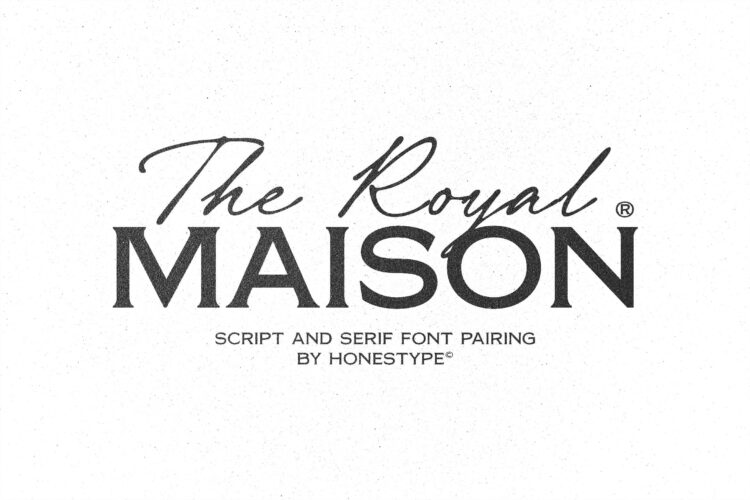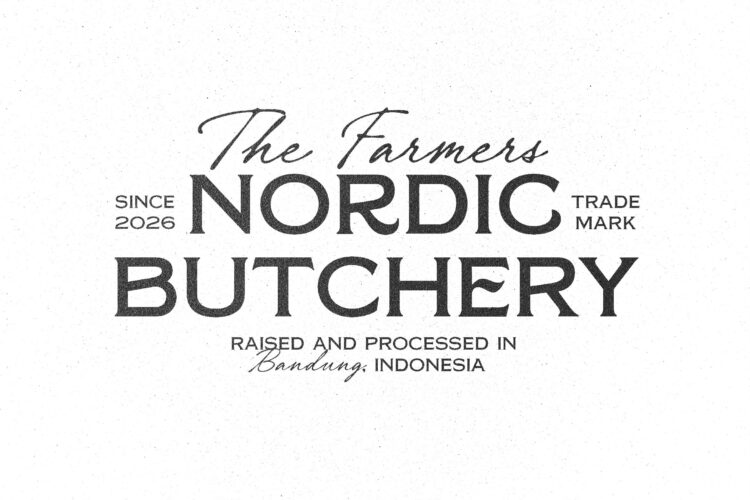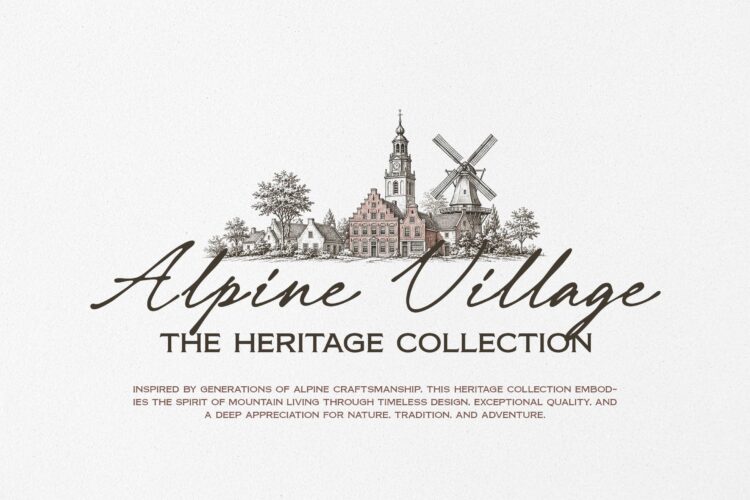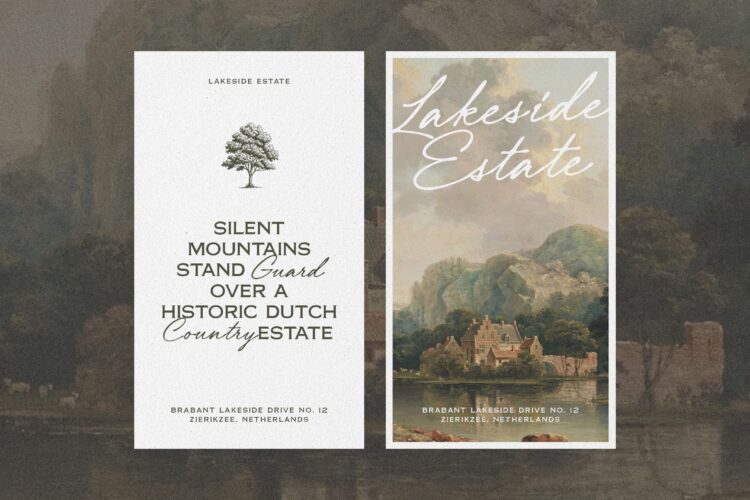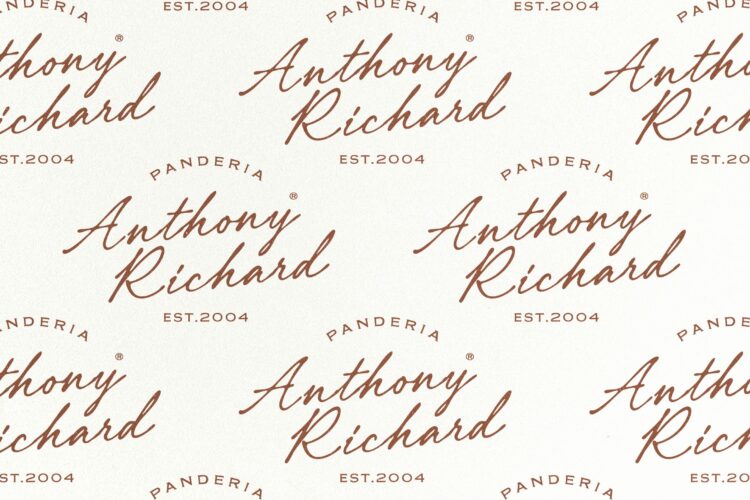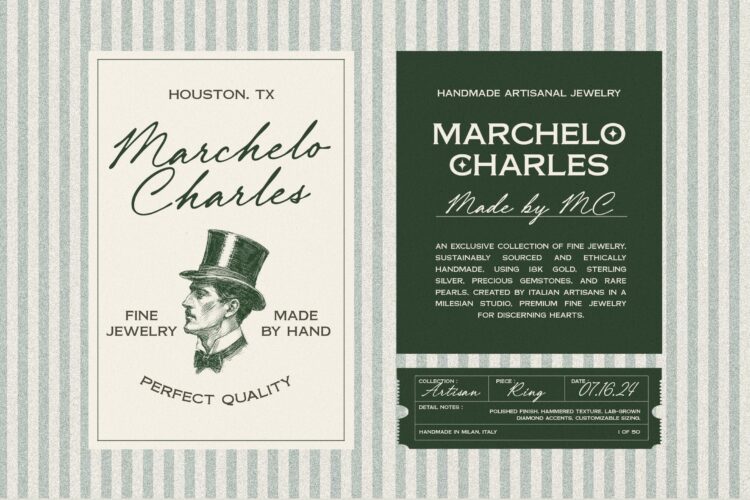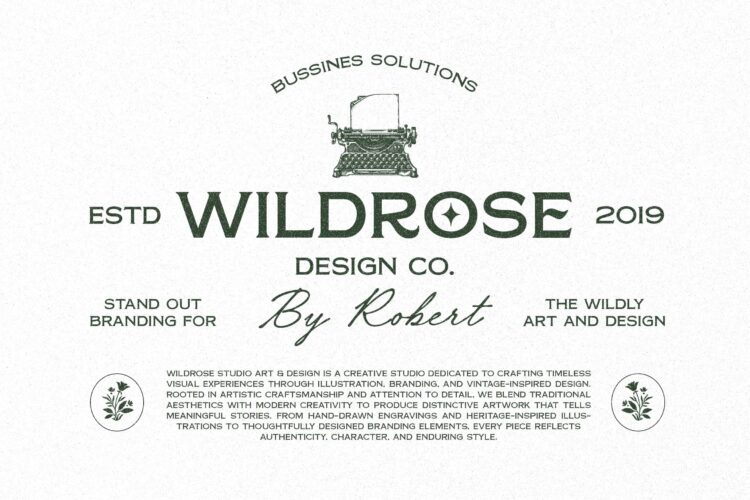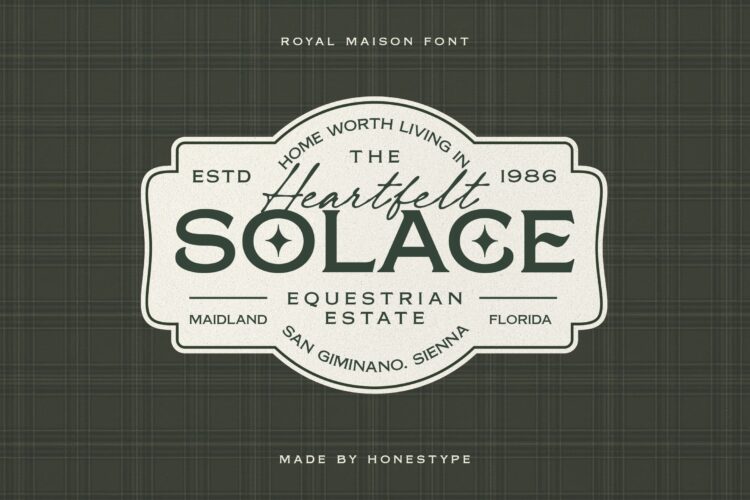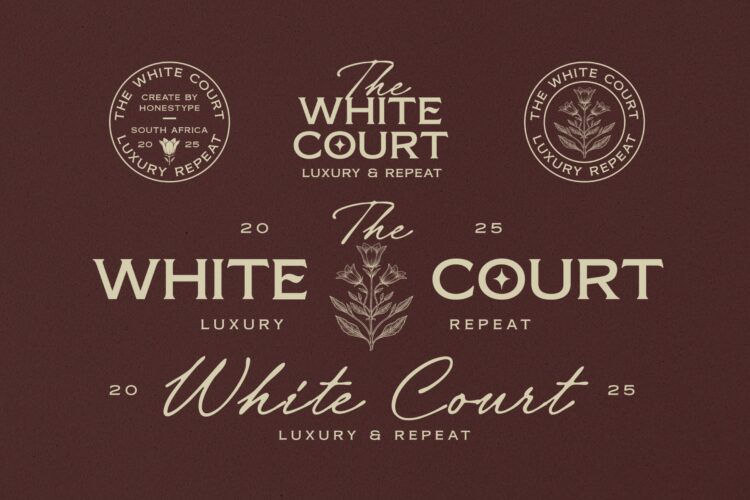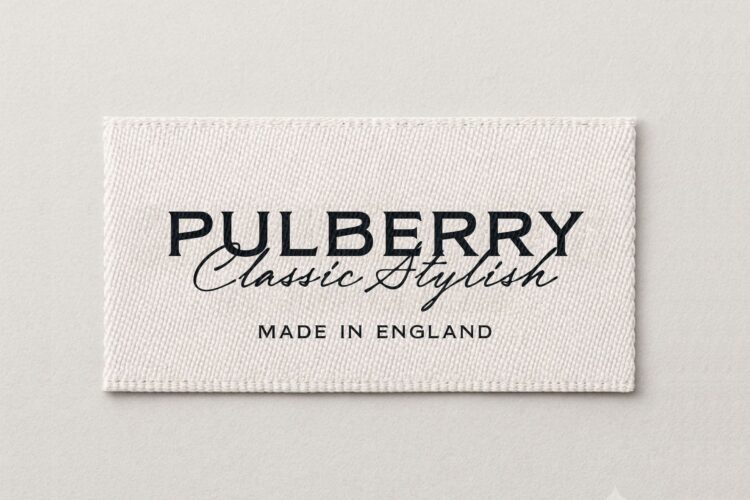
Royal Maison – Elegant Script & Serif Font Duo
Royal Maison is a timeless font duo that combines an elegant handwritten script with a refined serif typeface. Designed for premium branding, vintage-inspired logos, packaging, editorial layouts, and luxury identity projects, this versatile pair creates a sophisticated and authentic look with effortless contrast.
The flowing script adds warmth and personality, while the bold serif delivers confidence, readability, and a classic aesthetic. Whether you’re designing logos, product labels, restaurant branding, coffee packaging, wine labels, fashion identities, or wedding stationery, Royal Maison helps your work stand out with a professional and high-end finish.
Perfect For:
- Logo Design
- Luxury Branding
- Vintage & Heritage Logos
- Packaging Design
- Restaurant & Café Branding
- Wine & Whiskey Labels
- Fashion Branding
- Editorial & Magazine Titles
- Wedding Invitations
- Social Media Graphics
- Business Cards
- Signage & Merchandise
Features:
- Elegant Script & Serif Font Pairing
- Ligatures & Stylistic Alternates
Royal Maison is the perfect choice for designers looking to create elegant, vintage, and premium branding with a classic yet modern appeal.